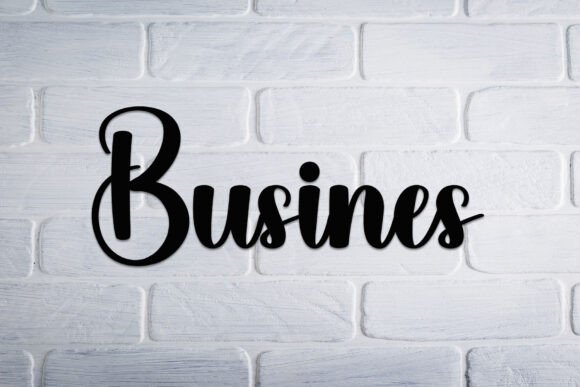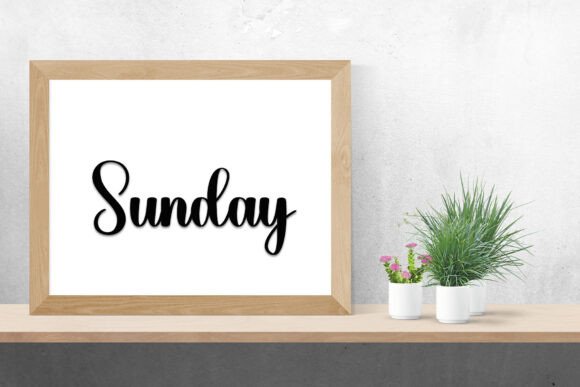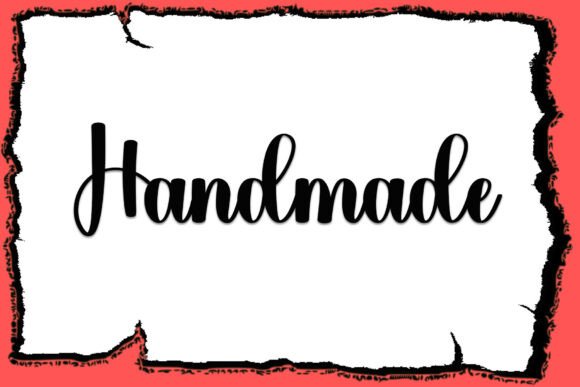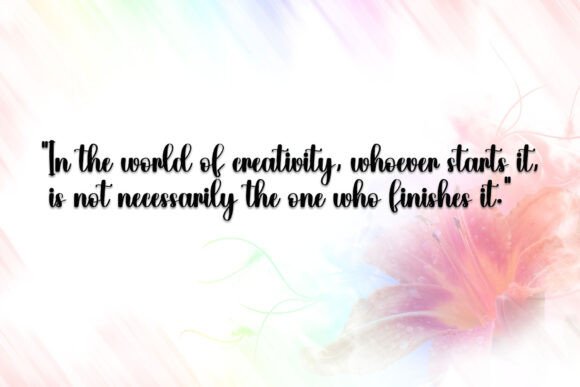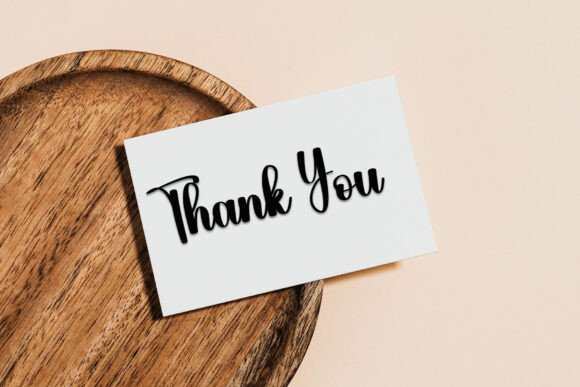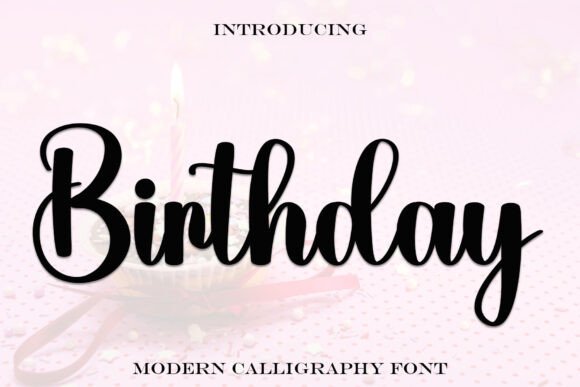
Introducing Birthday Font: The Sweet and Elegant Handwritten Font for Your Design Needs
Are you looking for a font that can add a touch of elegance and whimsy to your designs? Look no further than Birthday Font, a beautiful and cursive handwritten font that’s perfect for a variety of design projects. In this article, we’ll explore the features and benefits of Birthday Font, and show you how it can elevate your designs to the next level.
A Sweet and Cursive Handwritten Font
Birthday Font is a sweet and cursive handwritten font that’s designed to add a touch of joy and romance to your designs. Its gentle curves and flowing lines make it perfect for creating beautiful and elegant designs that will capture the attention of your audience. Whether you’re designing a logo, a greeting card, or a marketing promotion, Birthday Font is the perfect choice.
Versatile and Adaptable
One of the best things about Birthday Font is its versatility. It can be used on a wide range of design projects, from branding and logos to wedding things and greeting cards. Its elegant and cursive design makes it perfect for fashion and lookbook designs, and its casual feel makes it suitable for marketing promotions and other everyday designs.
Birthday Font is a dream come true for designers and crafters. Its unique and elegant design makes it perfect for creating beautiful and eye-catching designs that will stand out from the crowd. Whether you’re a professional designer or a DIY crafter, Birthday Font is a great addition to your font collection.
- Sweet and cursive handwritten design: Birthday Font features a beautiful and elegant handwritten design that’s perfect for creating joyful and romantic designs.
- Versatile and adaptable: Birthday Font can be used on a wide range of design projects, from branding and logos to wedding things and greeting cards.
- Elegant and casual: Birthday Font has an elegant and cursive design that’s perfect for creating sophisticated and refined designs, but still casual and approachable.
- Perfect for designers and crafters: Birthday Font is a great addition to any font collection, whether you’re a professional designer or a DIY crafter.
How to Use Birthday Font in Your Designs
- Pair it with other fonts: Birthday Font looks great when paired with other fonts, such as sans-serif fonts or serif fonts. Experiment with different combinations to find the one that works best for your design.
- Use it for headings and titles: Birthday Font is perfect for creating beautiful and eye-catching headings and titles. Use it to add a touch of elegance and whimsy to your designs.
- Add it to your branding: Birthday Font is a great addition to any brand’s font collection. Use it to create beautiful and consistent branding that will stand out from the crowd.
In conclusion, Birthday Font is a beautiful and elegant handwritten font that’s perfect for a variety of design projects. Its sweet and cursive design makes it perfect for creating joyful and romantic designs, and its versatility and adaptability make it suitable for a wide range of design needs. Whether you’re a designer or a crafter, Birthday Font is a great addition to your font collection.